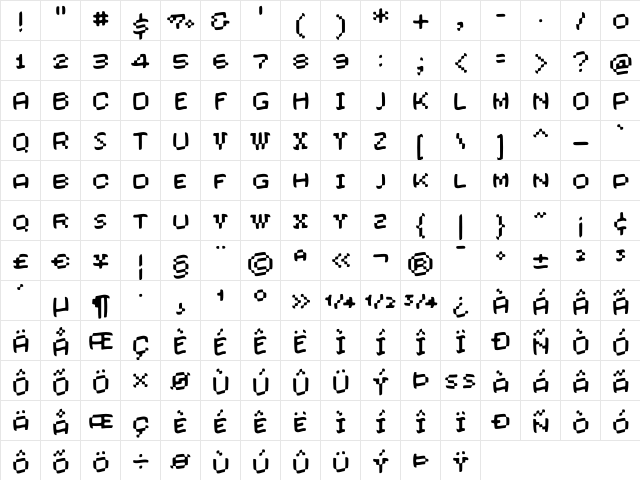
WasAScreenfont Regular
Design Context for WasAScreenfont Typeface
WasAScreenfont takes a measured approach to typography — its balanced proportions and neutral character make it a reliable workhorse for both digital and print work.